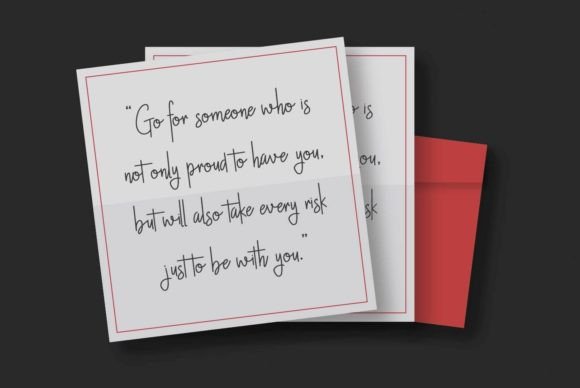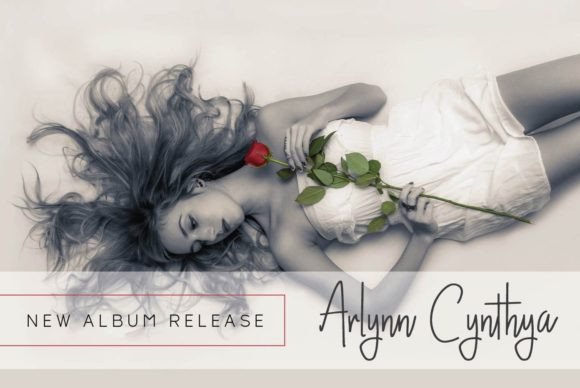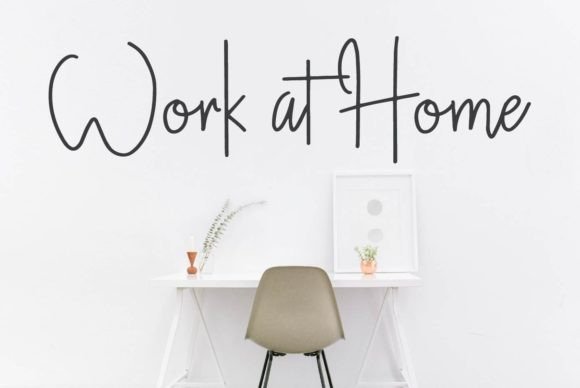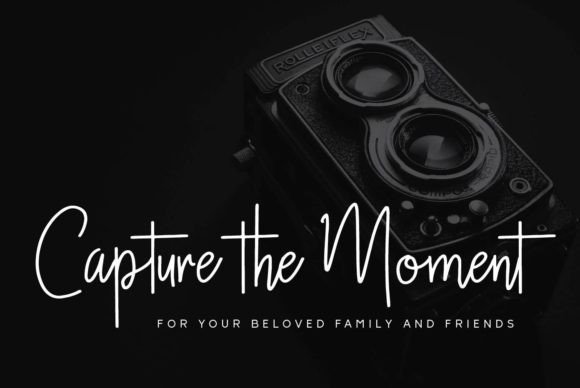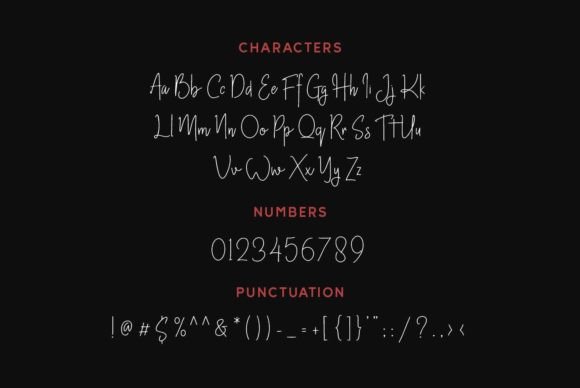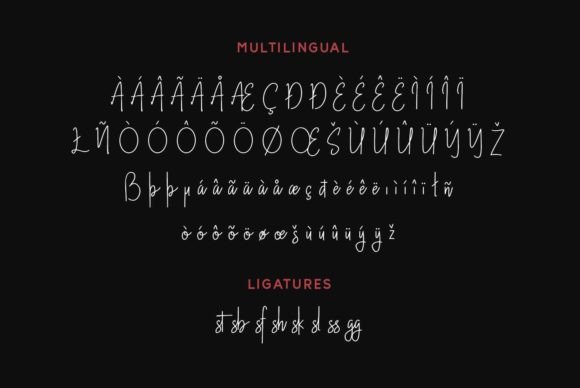
Banttany Font: Elevate Your Crafty Projects with Authentic Typography
Are you a designer or crafter looking for a unique and elegant font to add a personal touch to your projects? Look no further than Banttany Font! This delicate and well-rounded handwritten font is perfect for crafty projects that need authentic typography. In this article, we’ll explore the features and benefits of Banttany Font, and how you can use it to take your designs to the next level.
What is Banttany Font?
Banttany Font is a beautiful, handwritten font that exudes elegance and sophistication. Its delicate and well-rounded letterforms make it perfect for a variety of crafty projects, from wedding invitations and birthday cards to personal branding and elegant logos. With its authentic and unique feel, Banttany Font is sure to add a touch of personality to your designs.
Features of Banttany Font
So, what makes Banttany Font so special? Here are just a few of its key features:
- Delicate and well-rounded letterforms: Banttany Font features beautiful, delicate letterforms that are both elegant and easy to read.
- Handwritten feel: With its unique and authentic handwritten feel, Banttany Font is perfect for crafty projects that need a personal touch.
- Versatile: Banttany Font can be used for a wide range of projects, from wedding invitations and birthday cards to personal branding and elegant logos.
- Elegant and sophisticated: Banttany Font exudes elegance and sophistication, making it perfect for designs that need a touch of luxury.
Using Banttany Font in Your Designs
So, how can you use Banttany Font in your designs? Here are a few ideas to get you started:
- Wedding invitations: Banttany Font is perfect for wedding invitations, adding a touch of elegance and sophistication to your designs.
- Birthday cards: Use Banttany Font to create beautiful and personalized birthday cards that will make your loved ones feel special.
- Personal branding: Banttany Font is a great choice for personal branding, adding a touch of personality and elegance to your logo and marketing materials.
- Elegant logos: Use Banttany Font to create elegant and sophisticated logos that will help your business stand out.
Benefits of Using Banttany Font
So, why should you choose Banttany Font for your crafty projects? Here are just a few of the benefits of using this beautiful font:
- Adds a personal touch: Banttany Font adds a personal touch to your designs, making them more unique and engaging.
- Elegant and sophisticated: Banttany Font exudes elegance and sophistication, making it perfect for designs that need a touch of luxury.
- Versatile: Banttany Font can be used for a wide range of projects, making it a great addition to your font library.
- Easy to read: Despite its delicate and handwritten feel, Banttany Font is easy to read, making it perfect for designs that need to communicate a message.
In conclusion, Banttany Font is a beautiful and elegant handwritten font that is perfect for crafty projects that need authentic typography. With its delicate and well-rounded letterforms, handwritten feel, and versatile nature, Banttany Font is sure to add a touch of personality and elegance to your designs. Whether you’re a designer or crafter, Banttany Font is a great choice for wedding invitations, birthday cards, personal branding, elegant logos, and more. So why not give it a try and see how it can elevate your designs?
- Banttany Font is a delicate and well-rounded handwritten font perfect for crafty projects.
- It features elegant and sophisticated letterforms with a handwritten feel.
- Banttany Font is versatile and can be used for a wide range of projects.
- It adds a personal touch and elegance to designs, making them more unique and engaging.